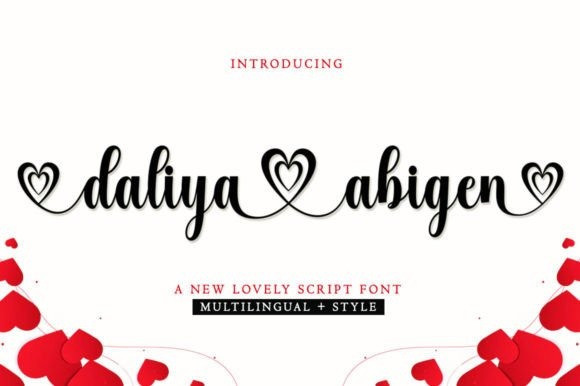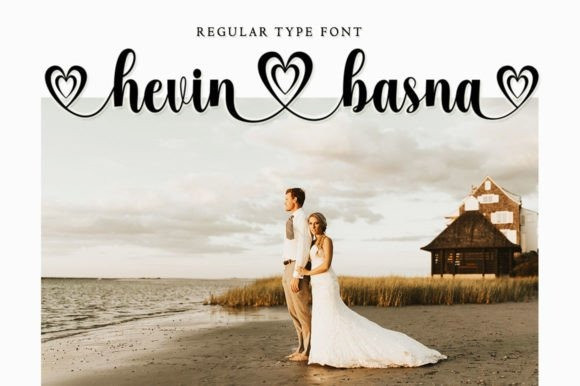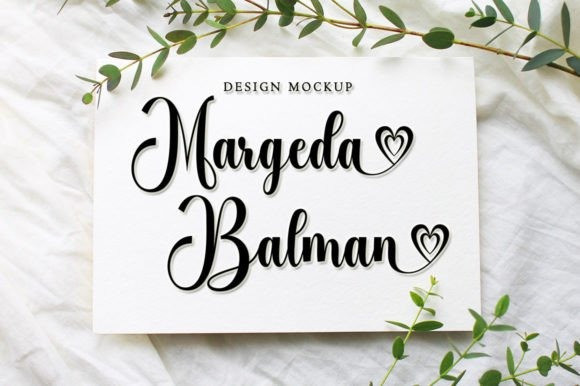
Daliya Abigen Font
Daliya Abigen is a beautiful script perfect for branding, wedding invitations, and other romantic projects.
This love-centered look makes it perfect for use in all your design projects be it logos, labels, packaging designs, blog titles, posters, wedding designs, social media posts, Instagram designs, etc.